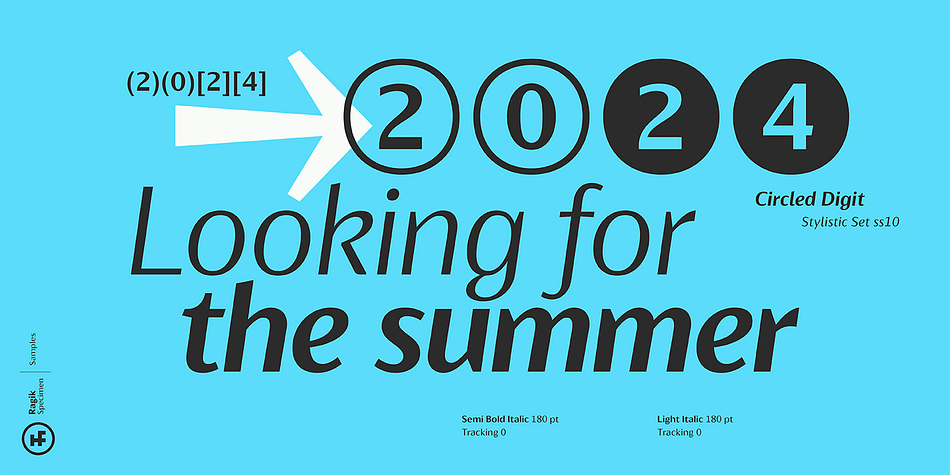
Ragik
Designed by Oğuzhan Cengiz, Ragik is a sans serif font family. This typeface has sixteen styles and was published by Hurufatfont Type Foundry.
Ragik; It is a low-contrast sans serif font family with two accents. The letters are designed with a clear and simple elegance, devoid of ornaments. The open terminals of the letters “S, C, G, s, a, c, e” are elegant and legible with their large open areas.
It consists of 16 styles, from thin to heavy, with true italics. Ideal for modern typographic posters, packaging and branding designs.
It comes with rich OpenType features. Alternating glyphs, elegant and functional ligatures. All number sets (tnum, onum, lnum, numr, denom, sinf, sups etc.) have a rich symbol library with ornaments and arrows.